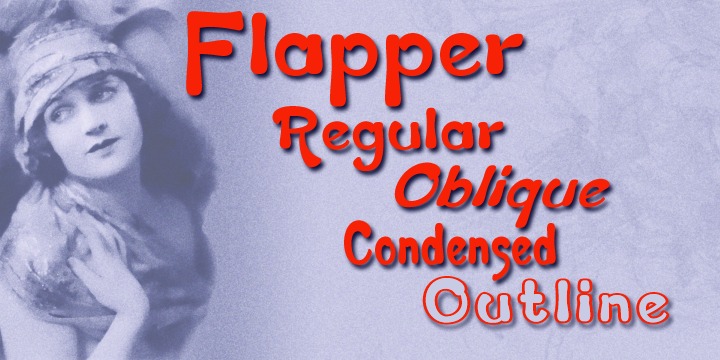
Flapper is family of four typefaces which embody a great deal of fun and more than a little spirit of the roaring 20s. If ever a set of typefaces could dance a high kicking Charleston, these are they.
Flapper is offered in regular, condensed, oblique and outline forms, and they all bring a great deal of fun and life wherever they are used. The Flapper family (yes, think of one of those dancing 20s girls with a long string of pearls...) is ideal for casual heading, bold captions, poster work and anywhere else a sense of fun is required.